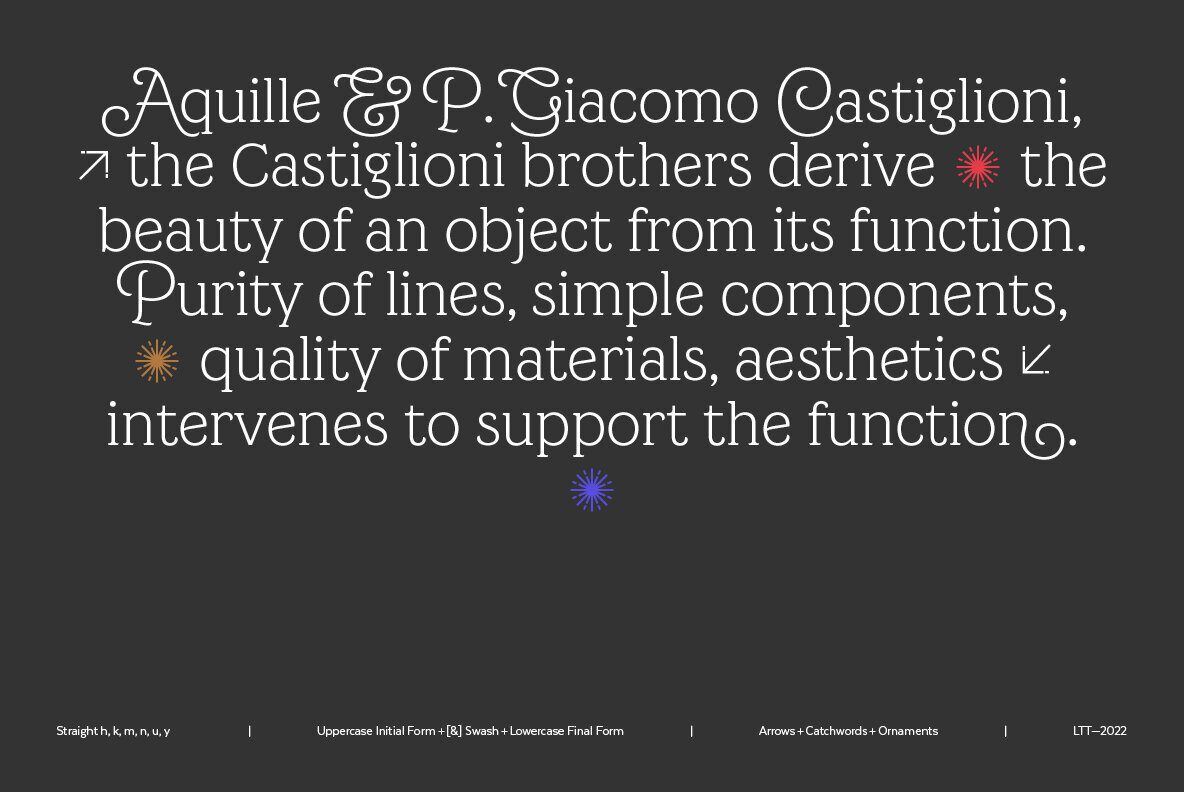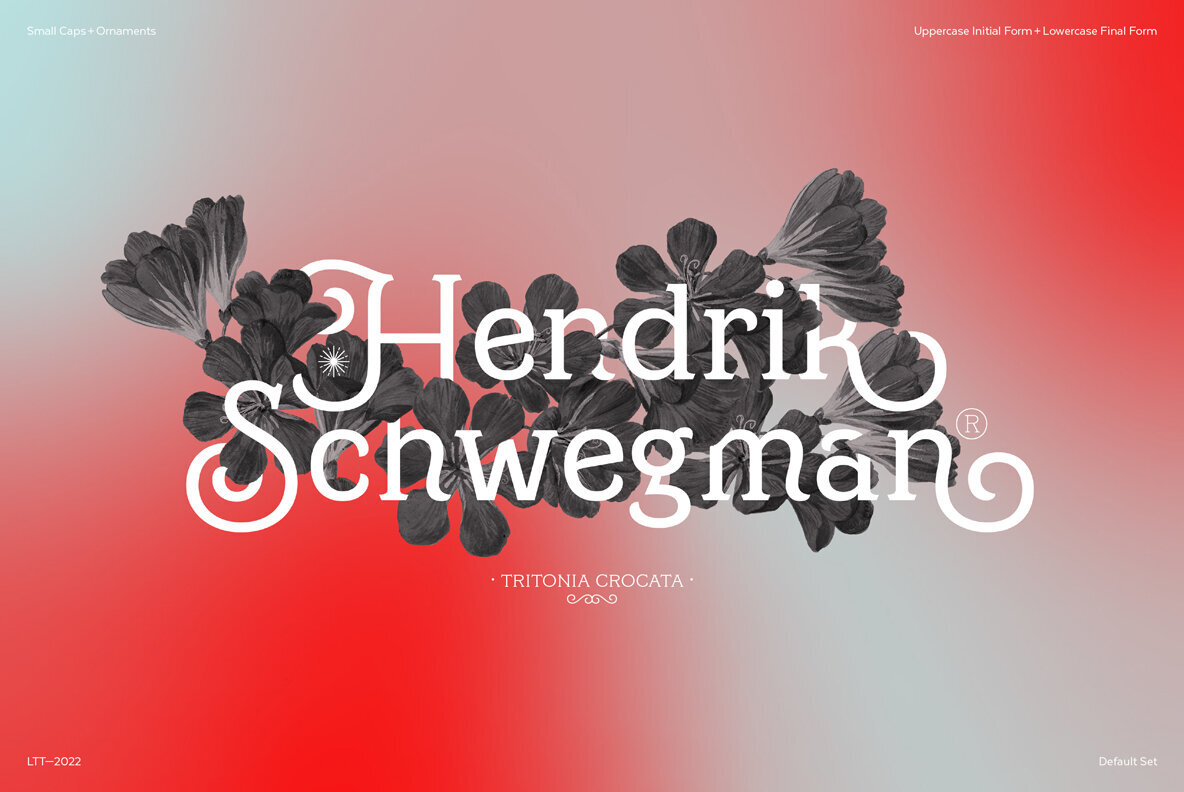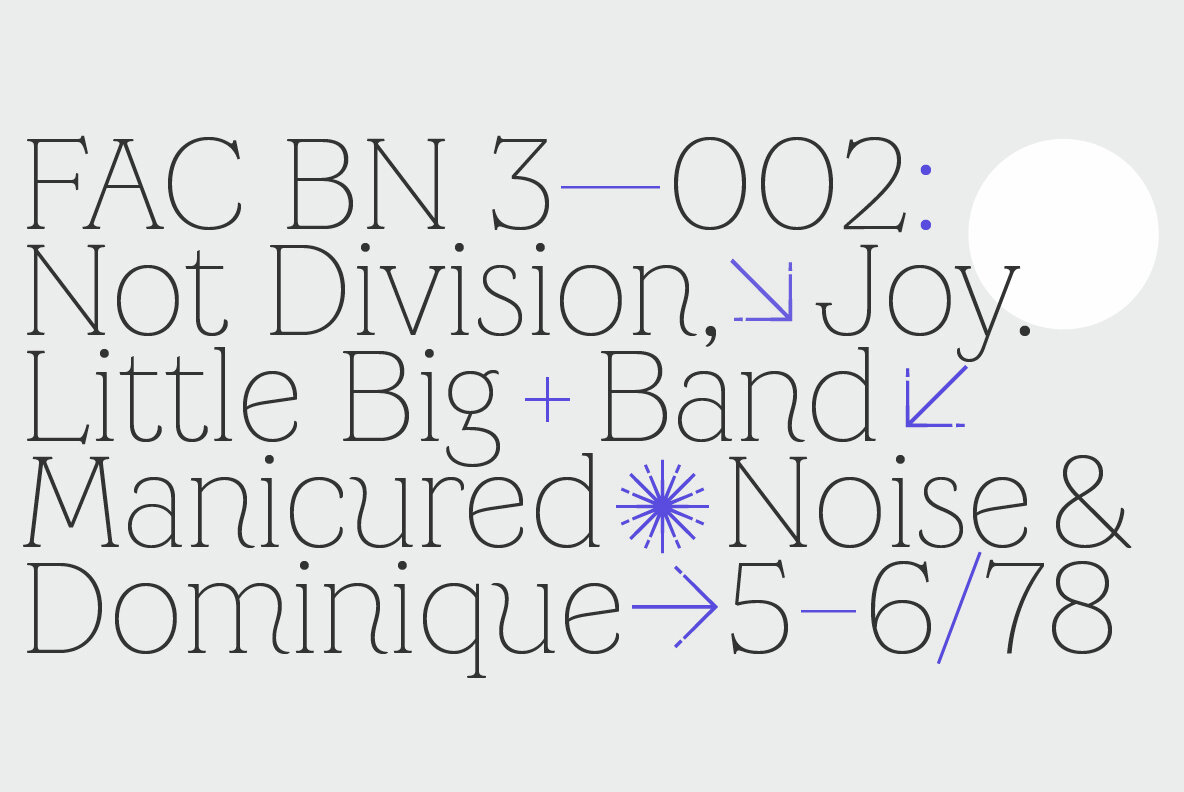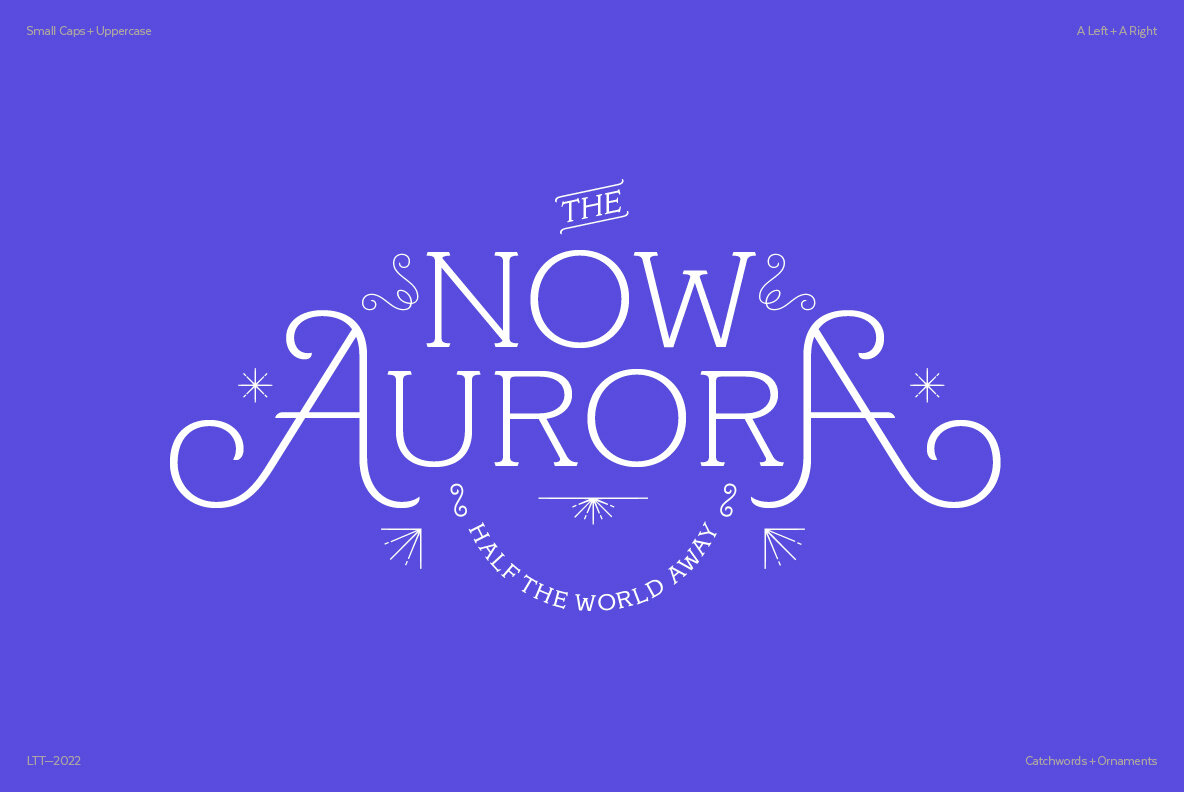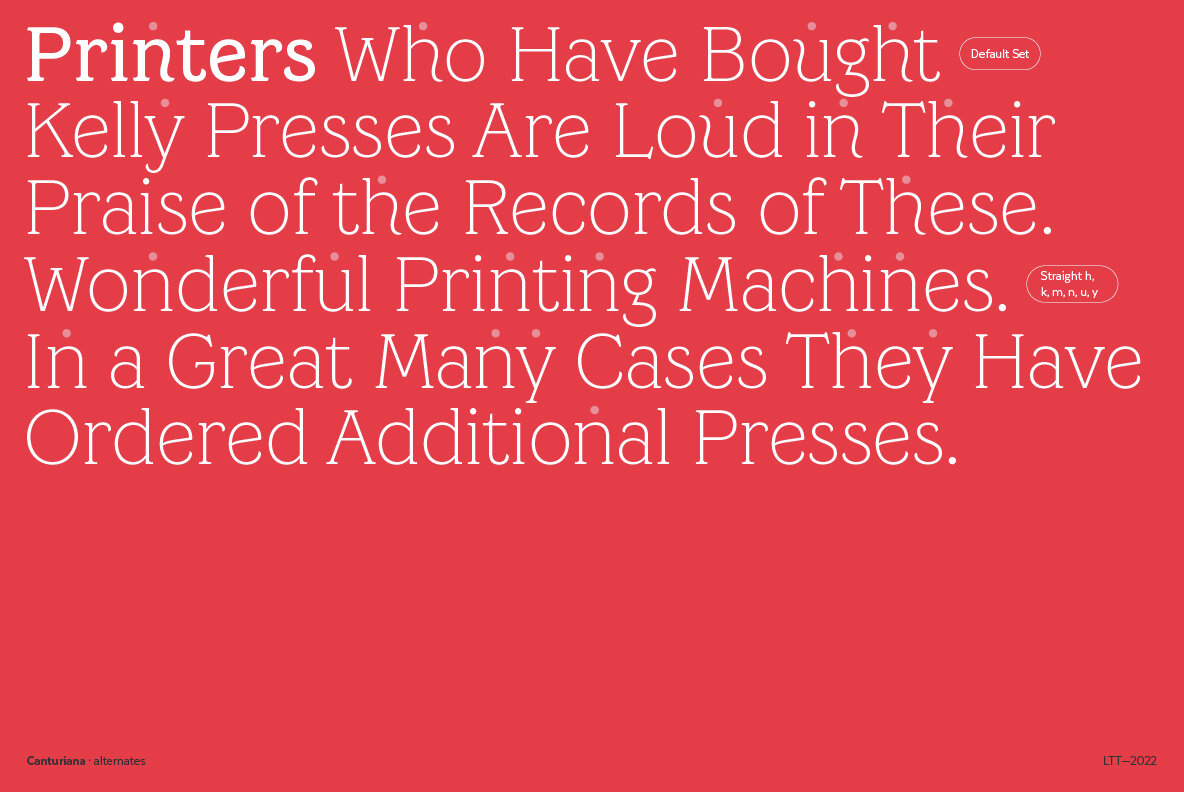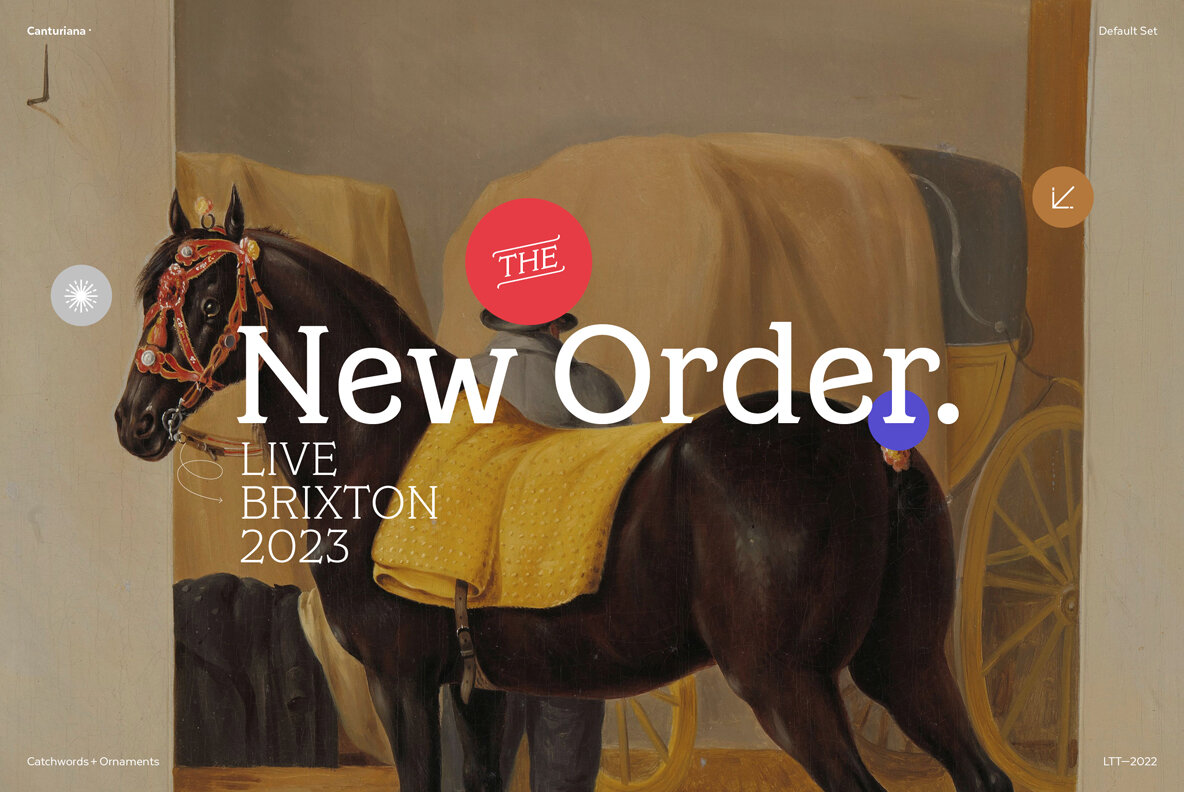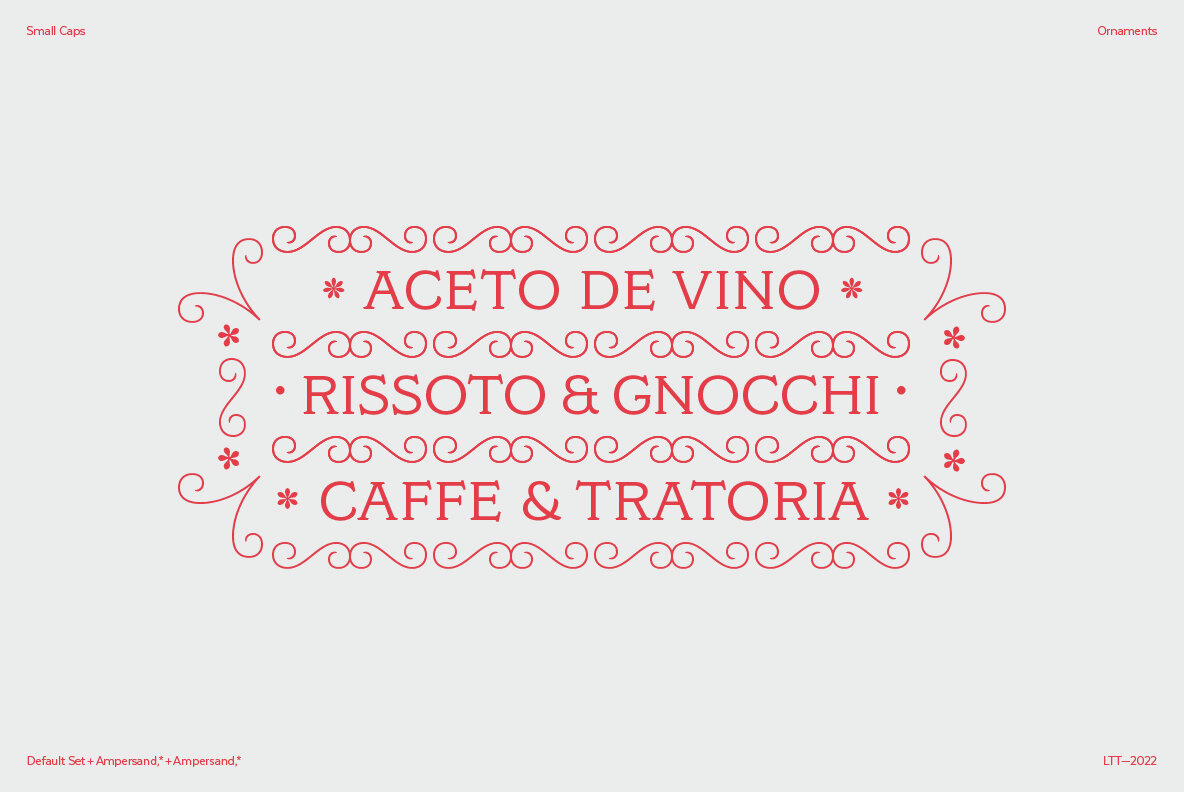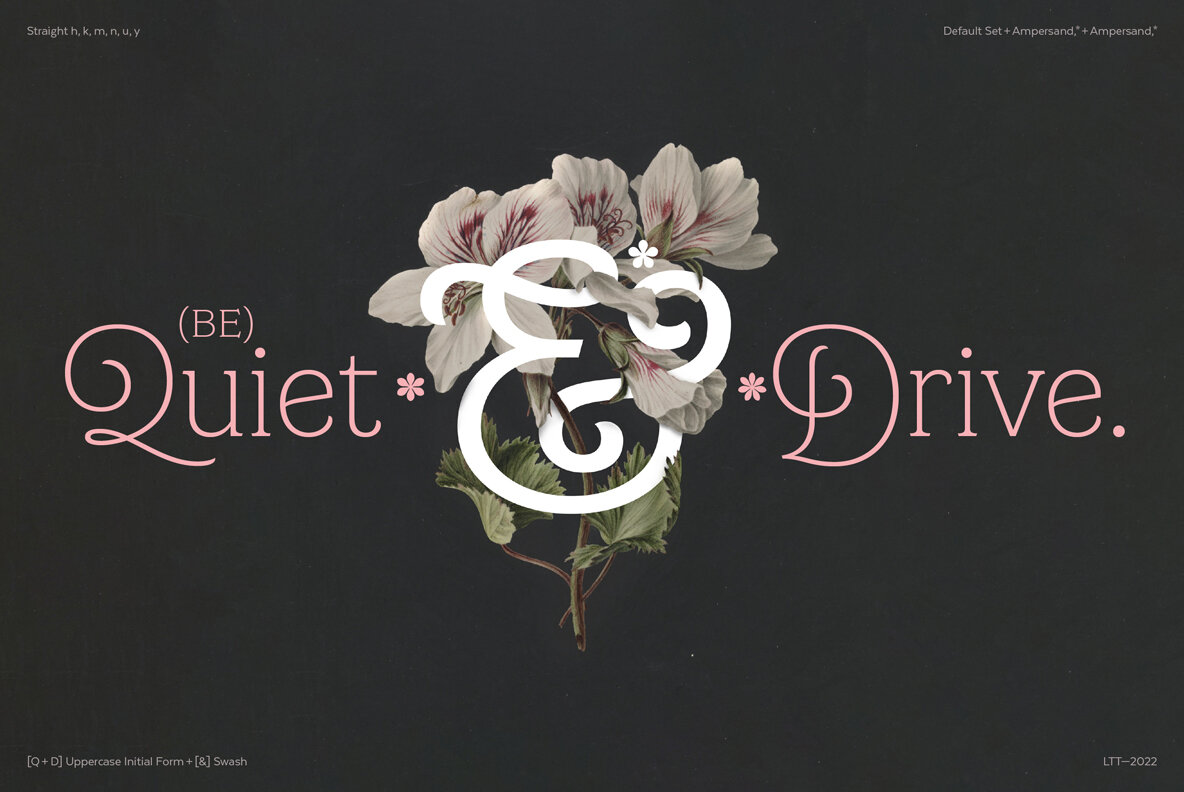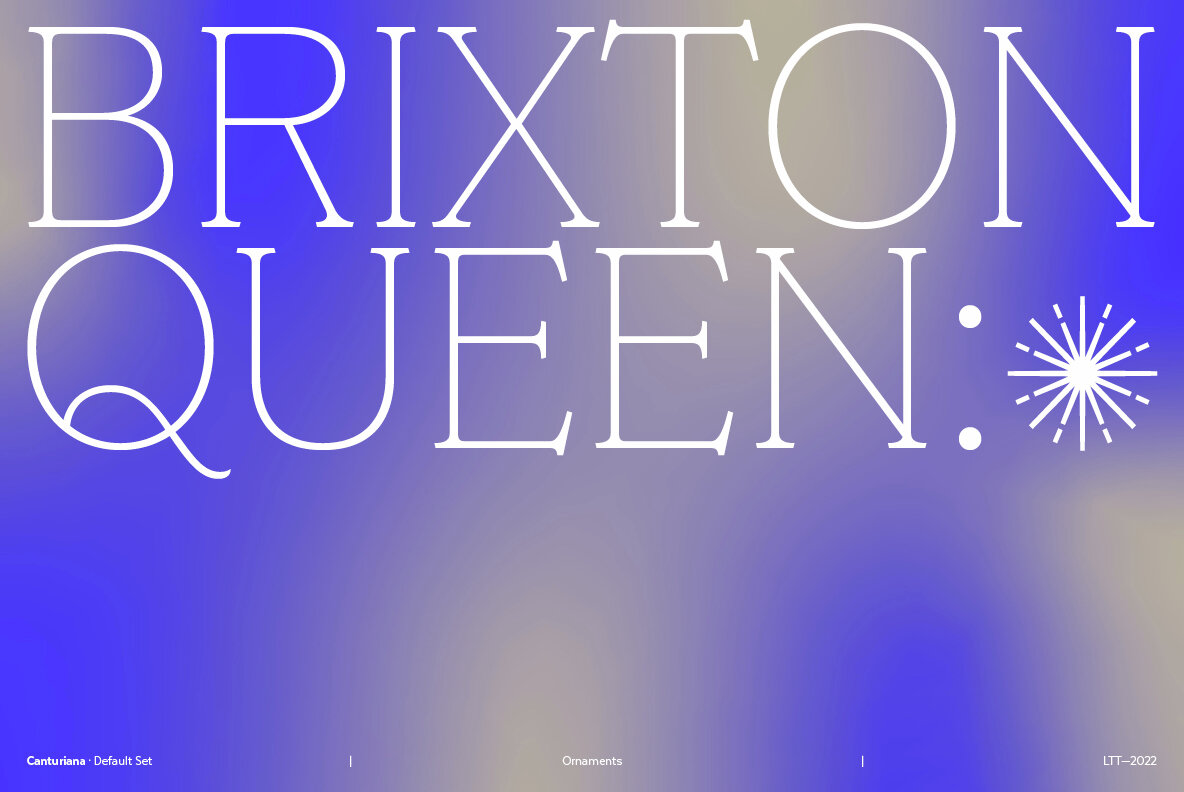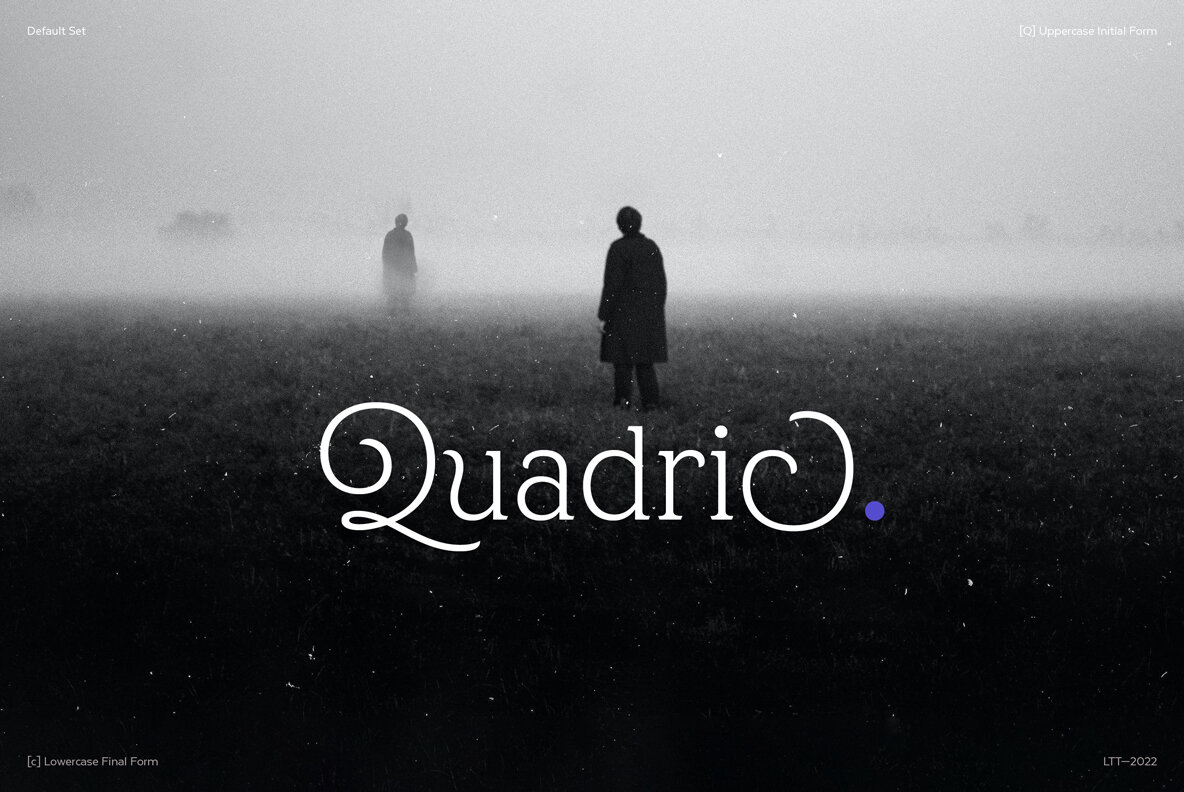
Canturiana Font
According to the Dictionary of the Spanish Royal Academy, «canturía» is the exercise of singing, and a way of singing musical compositions. Canturiana Type (derived from Canturía) has a romantic and musical air, as well as a clear sensuality thanks to its sinuous construction. The curves seduce us, conquer us, hypnotize us and the letters acquire a resounding lightness, and a very earthly presence that is complemented by a certain aerial, spiritual expressiveness. Canturiana Type is inspired by Canterbury, a font designed in the 1920s by the legendary American type designer and engineer Morris Fuller Benton and published by the American Type Founders (ATF). Canturiana Type collects all this heritage and transforms it into a digital typeface perfectly functional and adapted to the visual communication of the 21st century. Its elegant art deco essence provides it with a unique and heterodox imprint that works in very different media, giving them distinction and depth. The creative process of Canturiana Type has gone through various mutations to a point where each episode of its creation has left its mark, a multiple imprint that makes it unique, singular in its essence and plural in its possibilities. For this reason, Canturiana Type expresses itself with several voices without any variation in its essence. A conceptual ambiguity that makes it truly versatile. Canturiana Type is a typographic choir, a complex entity that has infinite nuances and tones. Classic Canturiana Type is composed of 5 weights, and has a large number of swashes, alternate characters, ligatures and various visual elements to make compositions as titles or for use in short texts. Canturiana Type has more than a thousand glyphs and offers a wide range of languages that use the Latin alphabet.
and cool. Disruptive and romantic. Literary and musical.